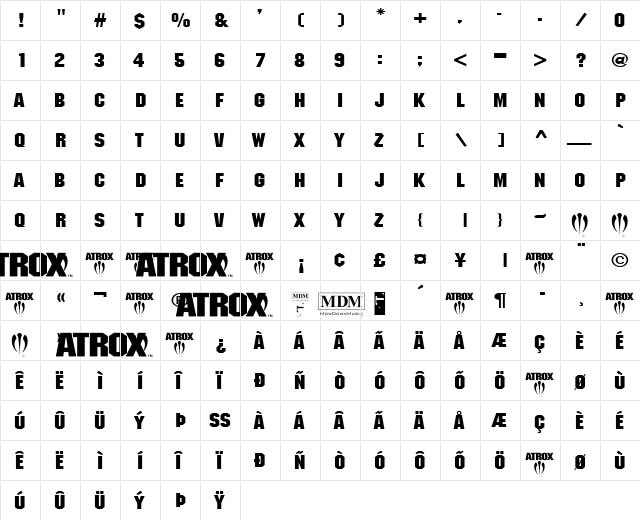
ATROX normal Font Preview
ATROX normal
Design Context for ATROX Typeface
ATROX offers clean, dependable letterforms without strong stylistic allegiance, making it a practical choice for designers who need flexibility.